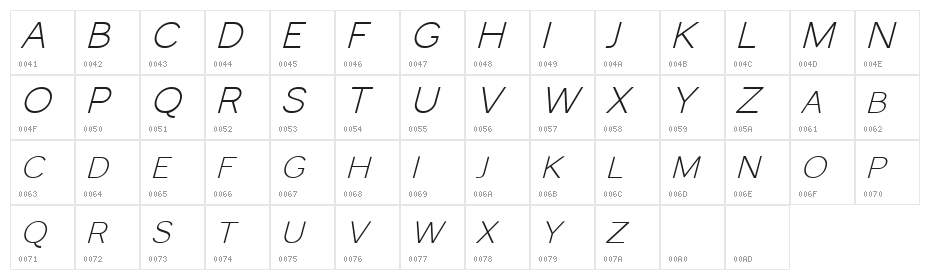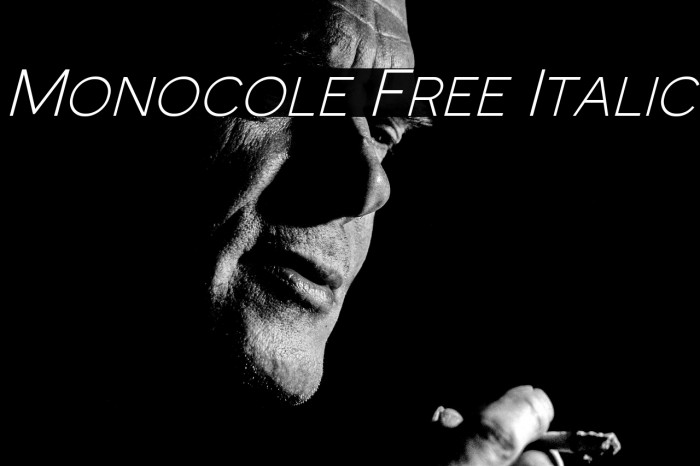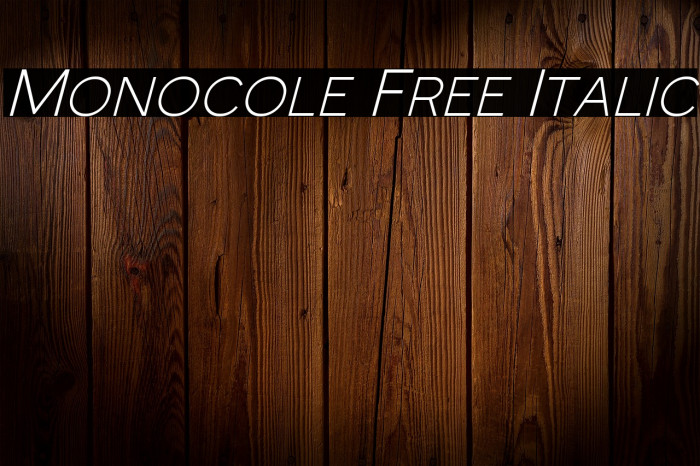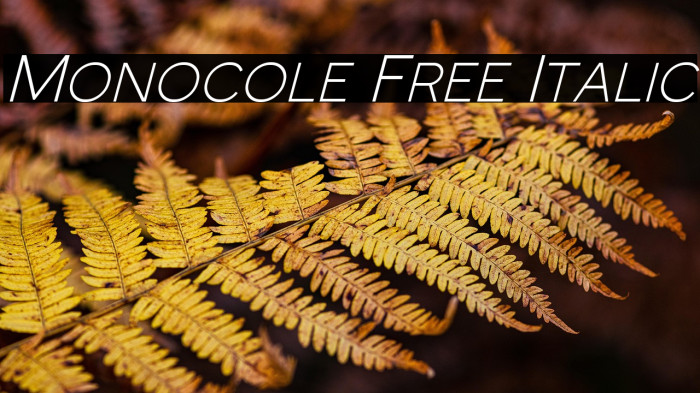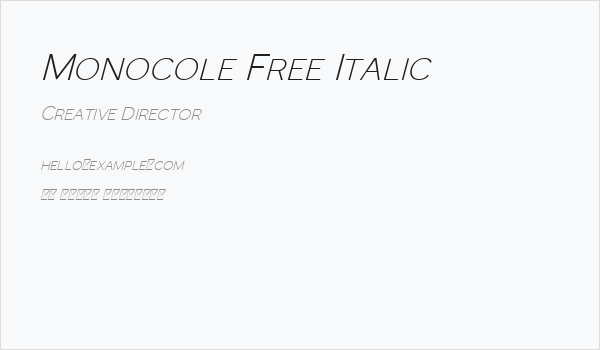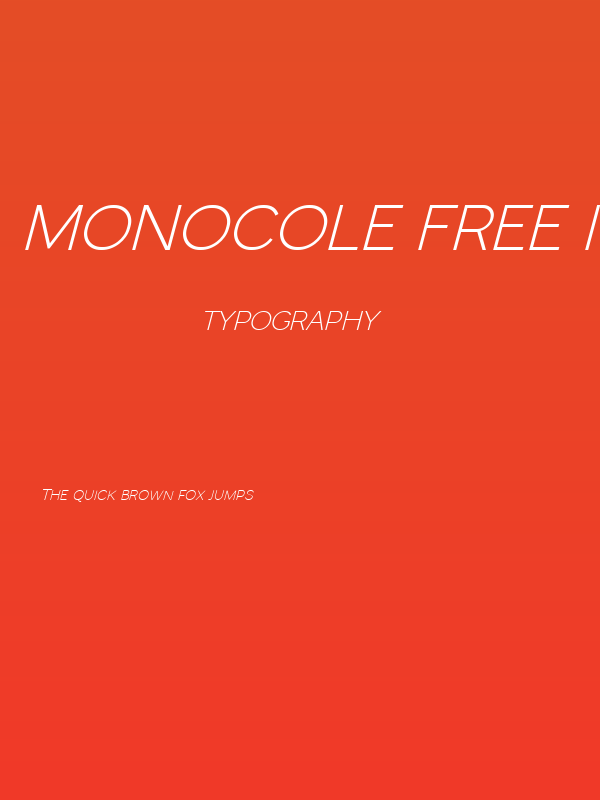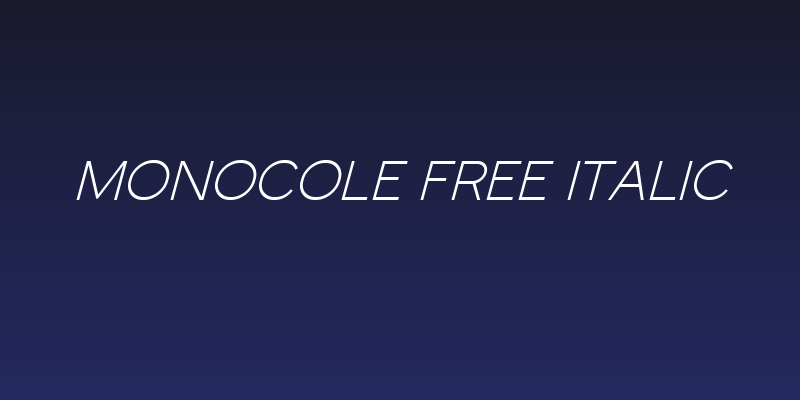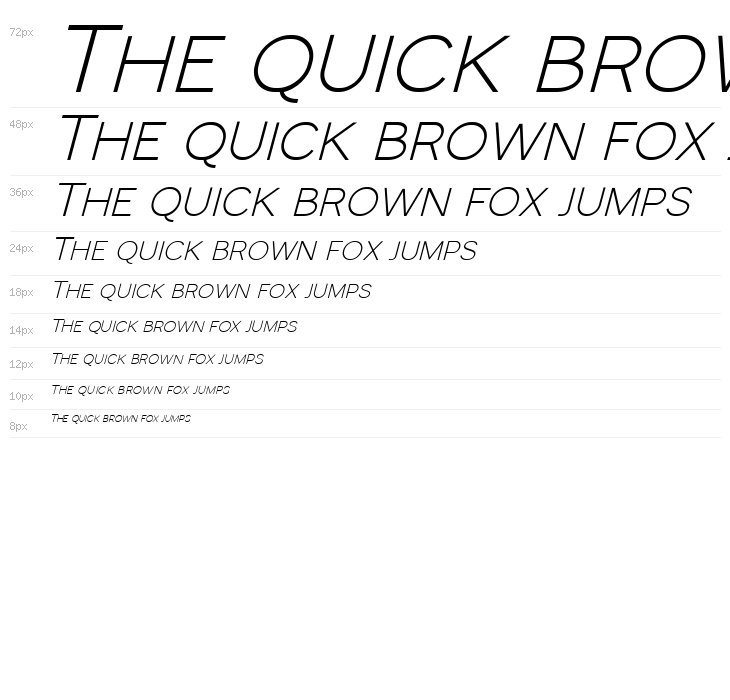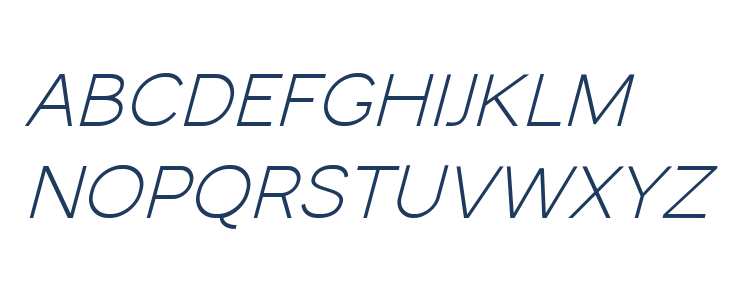
Monocole Free Italic Font
Monocole Free Italic Description
This font features a sleek and modern italic style, characterized by its clean lines and smooth curves. The letters are slightly slanted, giving a sense of motion and elegance. The design is minimalistic, with a focus on readability and simplicity. The characters are evenly spaced, providing a balanced and harmonious appearance. This font is versatile, suitable for both digital and print media, and can be used to convey a contemporary and professional look.
| Proposed Projects | Ideal for branding, editorial design, fashion magazines, and websites seeking a modern aesthetic. |